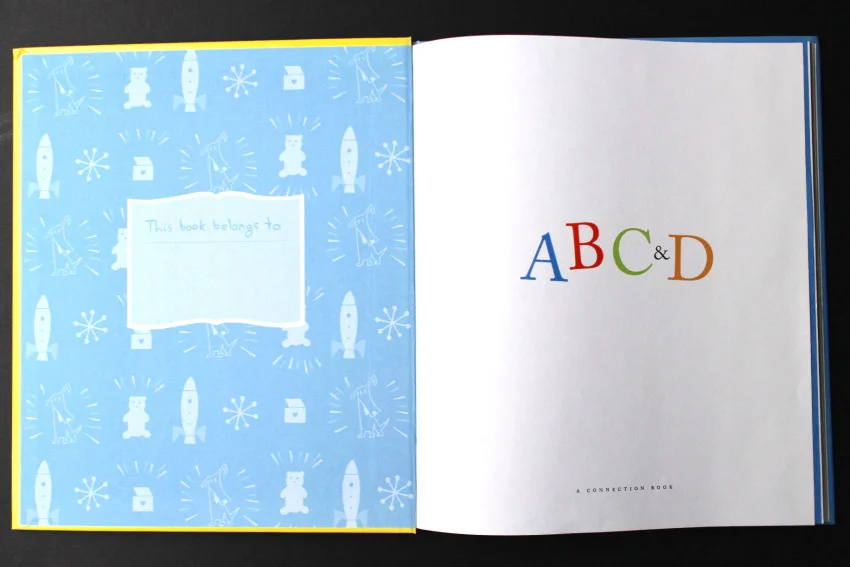
From almost 20 years of typesetting experience coming from annual report design, we've amassed a reference collection of over 1,500 well-designed reports spanning the last 40 years. We'll bring out the best examples of great design and show you what we've found makes great typography.
One of our favorite annual reports is ABC&D: All About Being Connected to Data, the Adaptec 1996 Annual Report.
The operations section tells a story that explains what Adaptec does, makes products that moves information between computers and peripherals and across enterprise networks. Design firm Cahan & Associates and designer Craig Clark took the complex concept of networks and simplified it into a children's story book (which we love), illustrated by Richard McGuire.
Appropriately, design follows function.
Hardbound and filled with bright illustrations, this uncommon annual report format begins the operations section with whimsical chapters on different use cases with computer networking: the small office, the enterprise and the mobile user.
Pages are set in a large transitional typeface (looks to us like Adobe Caslon Pro) against innocently-drawn illustrations. Such details really make a difference.
This was a refreshingly simple approach and innovative solution for corporate document that undoubtedly stood out from the crowd of annual reports, and made us smile.